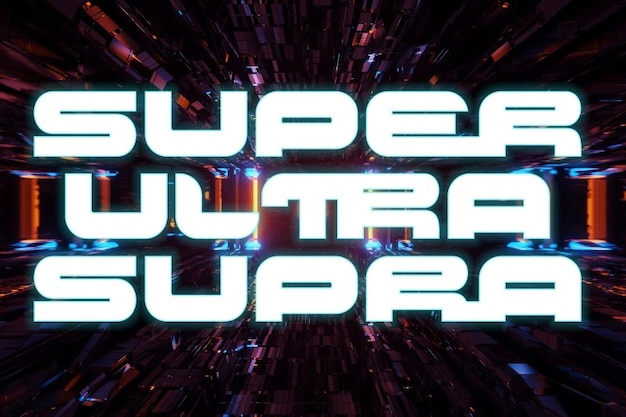
Super Ultra Supra Font
Super Ultra Supra is a bold, futuristic font that merges the raw strength of brutalism with the sleekness of neobrutalism. Its clean lines and sharp edges are complemented by a subtle shine, creating a striking visual impact. Perfect for modern, high-tech designs, Super Ultra Supra brings an edgy, yet polished look to any project, blending grit with elegance.
Super Ultra Supra One (700)
Super Ultra Supra Two (700)